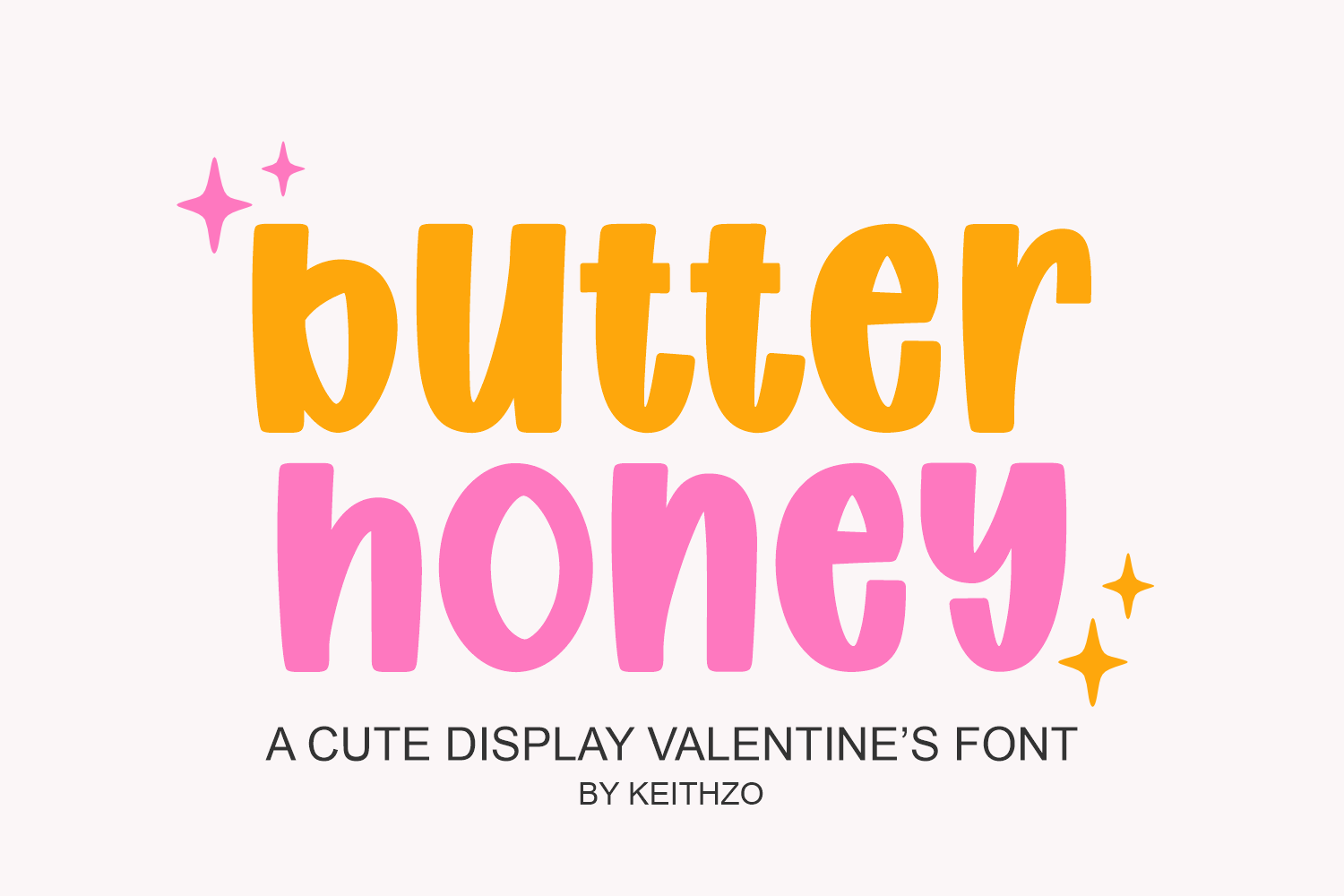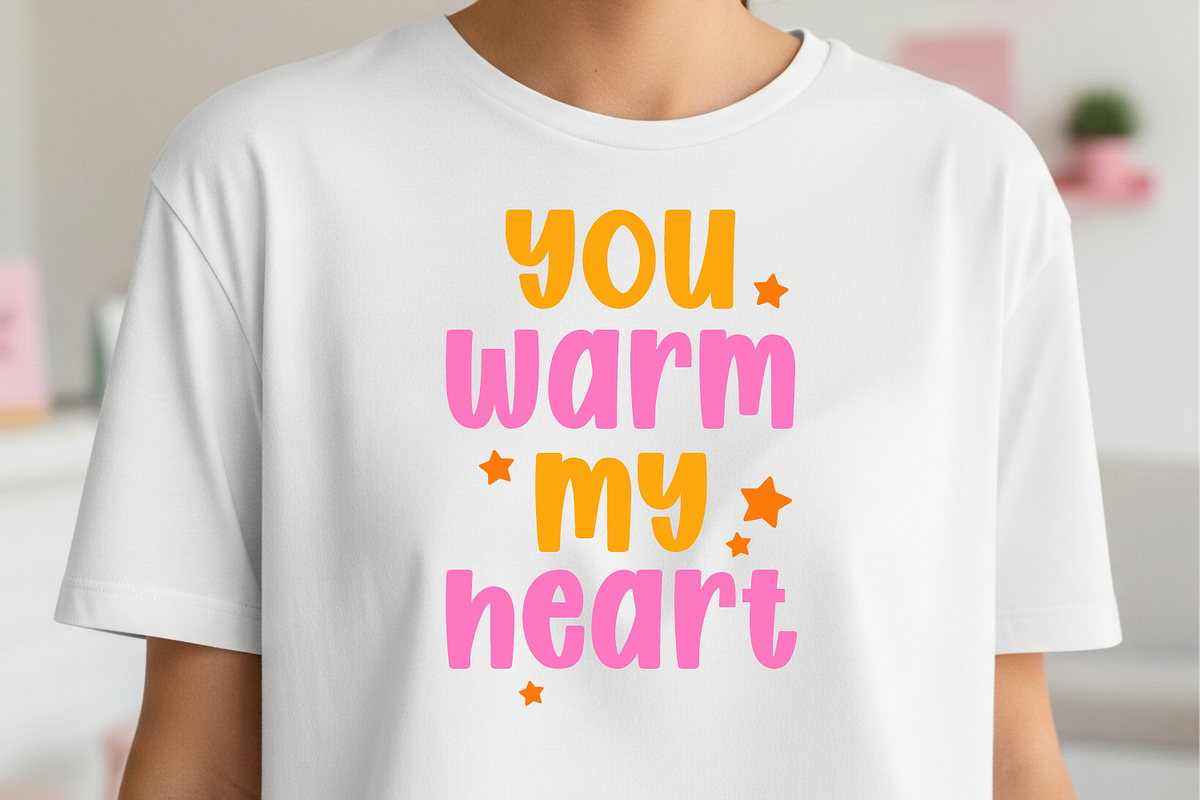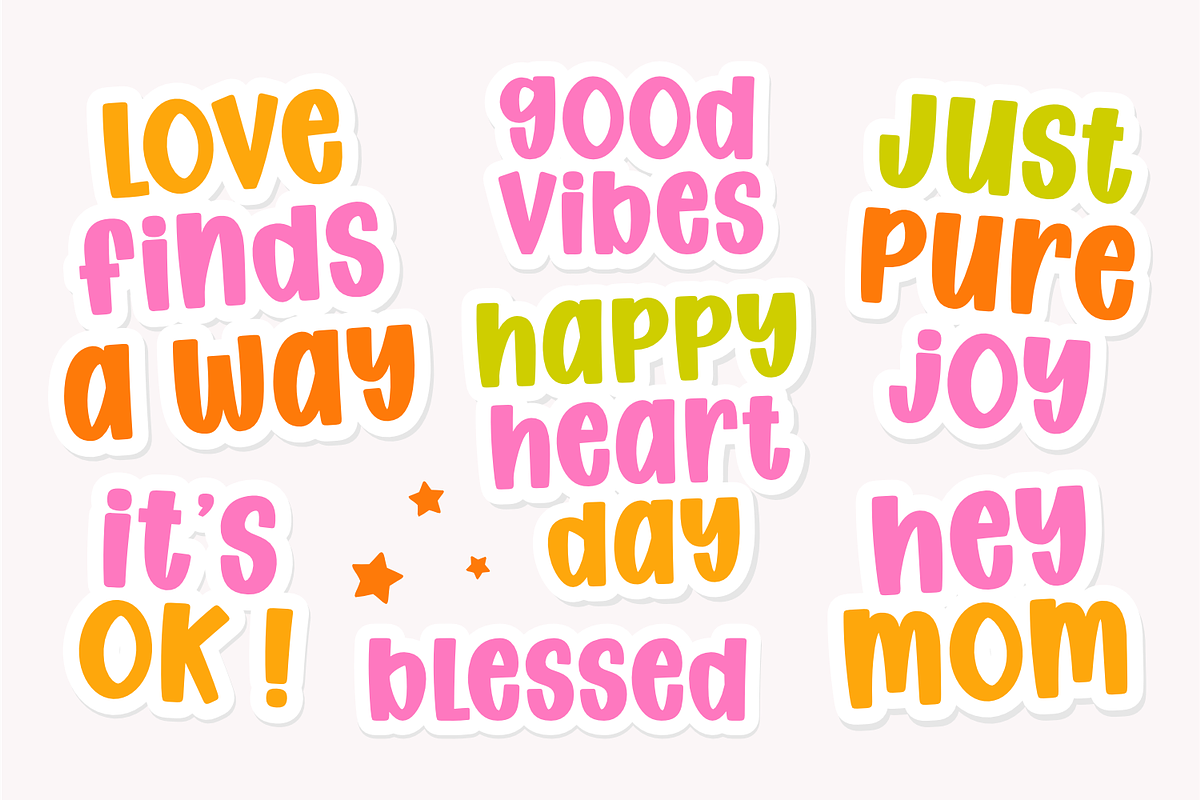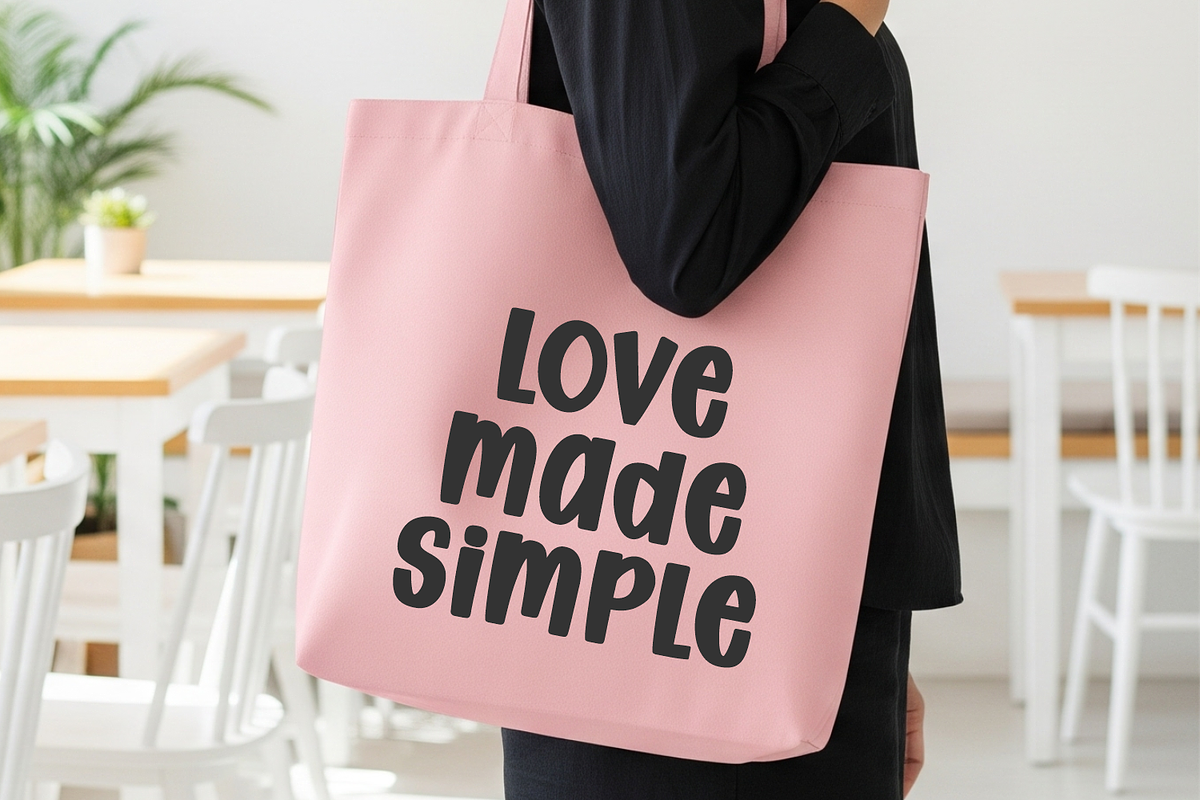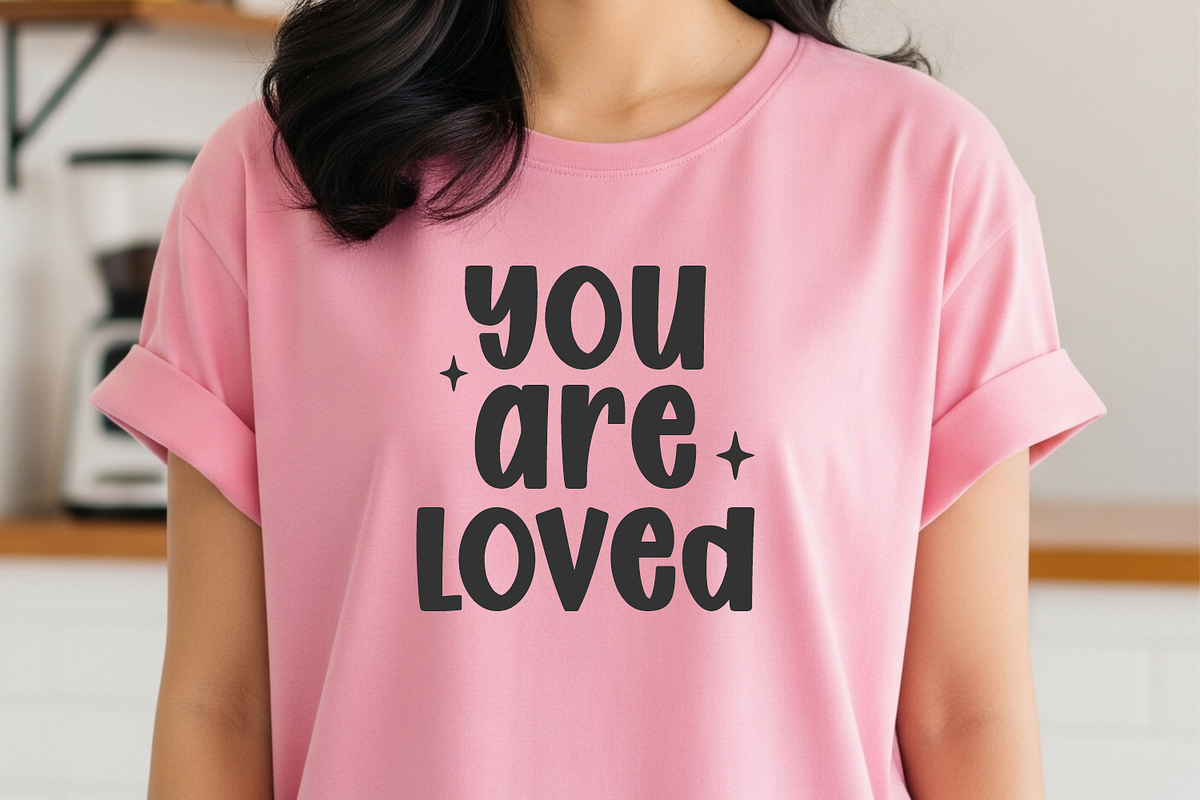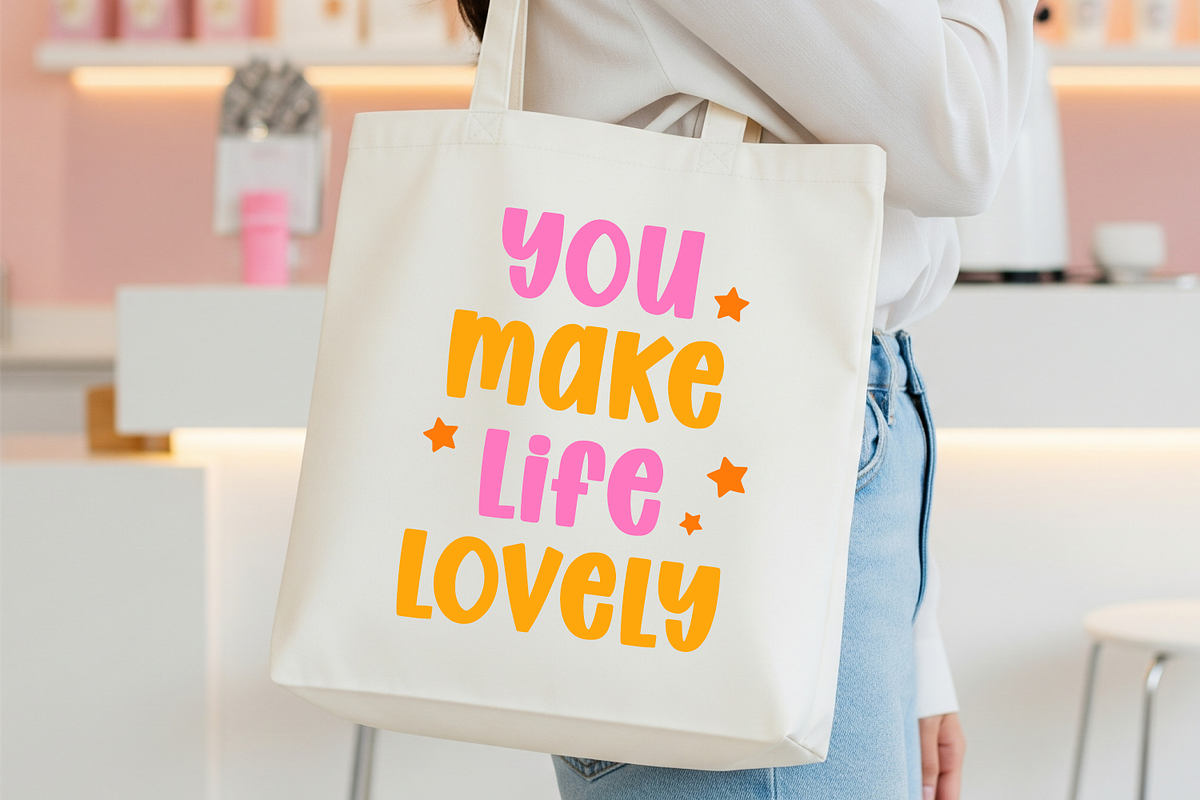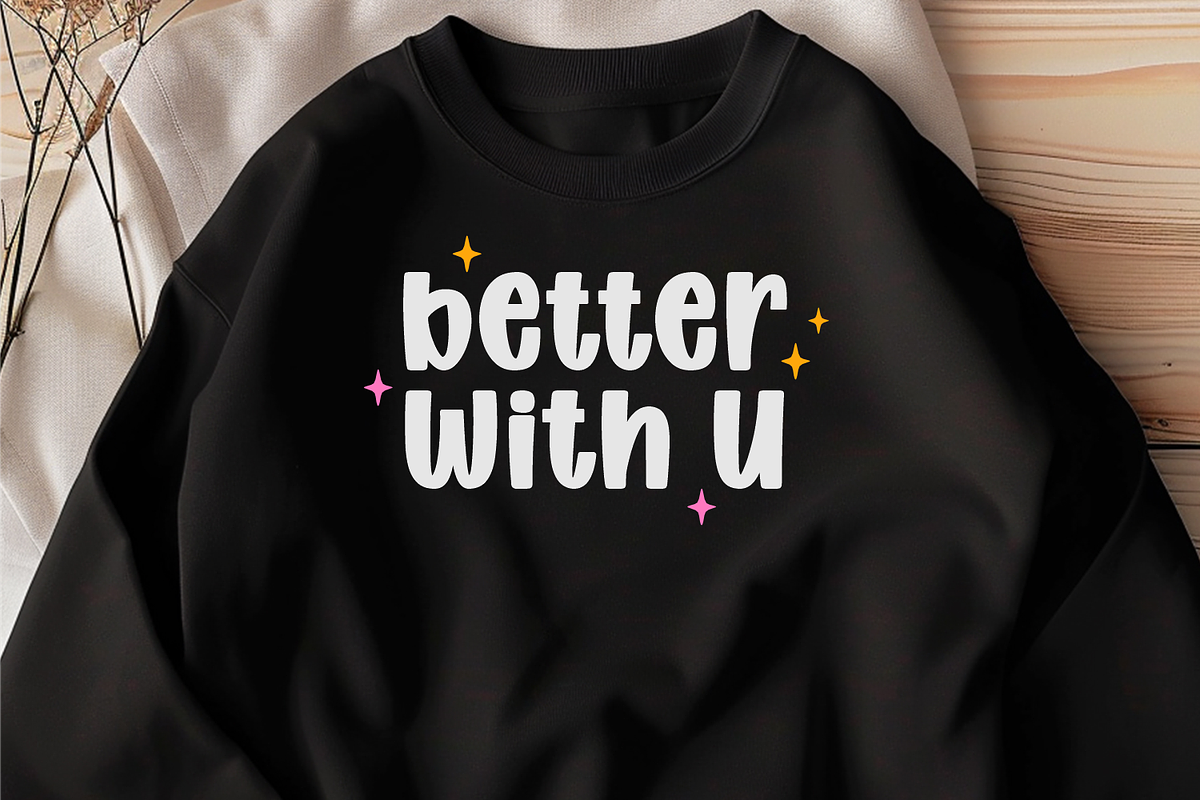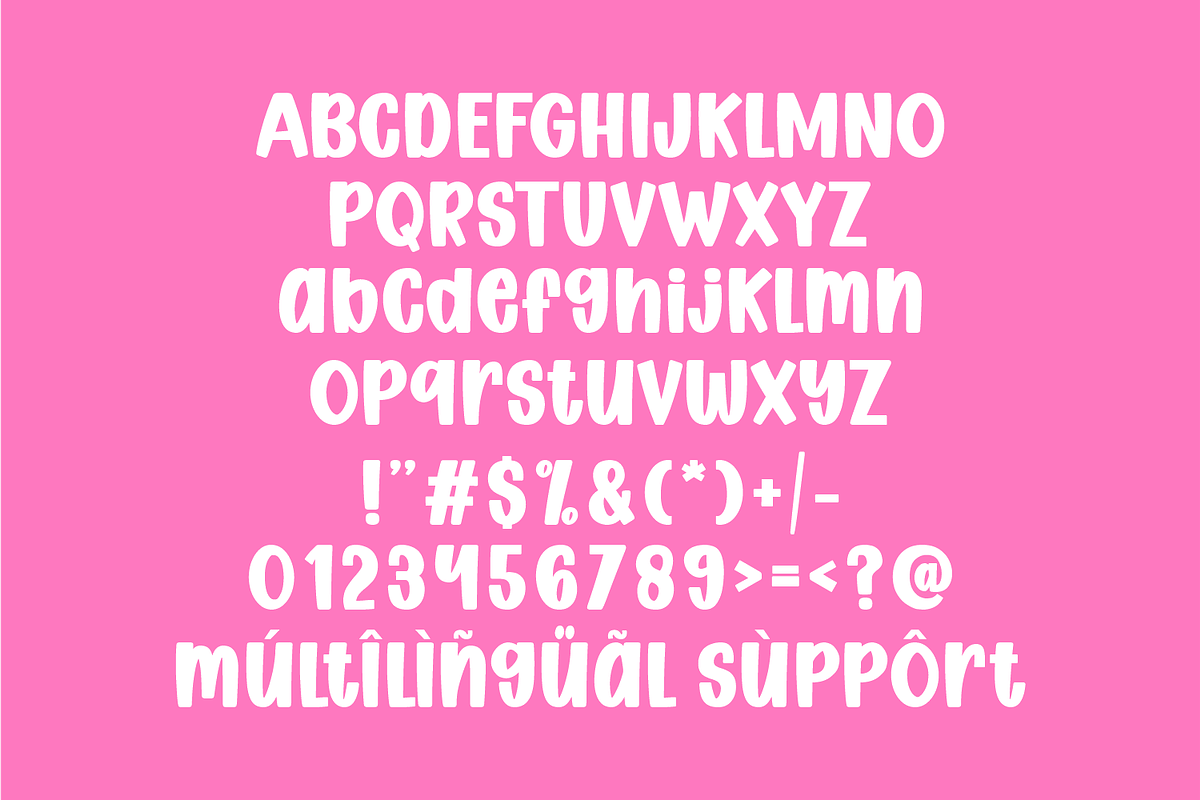
Butter Honey - Valentine's Font
Welcome to the world of Butter Honey, an adorable, exuberant handwritten typeface that lends a soft, sweet charisma to any design venture. Just like the irresistible blend of butter and honey, this font melds together the coziness of rounded edges with the lively rhythm of a joyous bounce. Infused with love and heartiness, Butter Honey is emblematic of its name, crafting designs as delightful and gratifying as a spoonful of your favorite dessert.
Designed to perfection for your Valentine’s Day creations, this font wraps romantic cards and love letters in an endearing, sincere aura. Don’t let its simplicity fool you. Despite its readability, Butter Honey retains its playful charm, making it a go-to choice for celebratory children’s invitations or sprightly educational materials. It is a textual delight in children’s book illustrations or as welcoming, fun wall art in nurseries. Butter Honey is not just a font – it’s a heartwarming addition to your expressive adventures